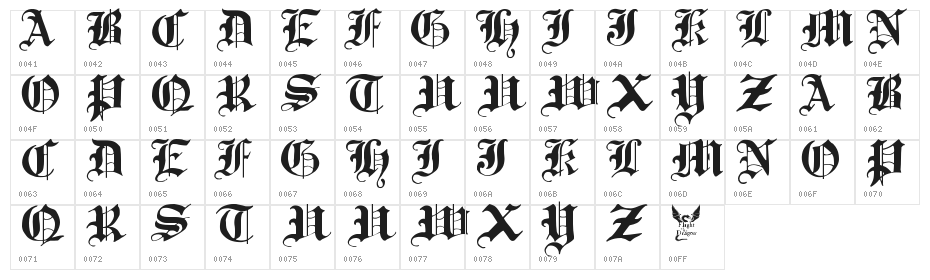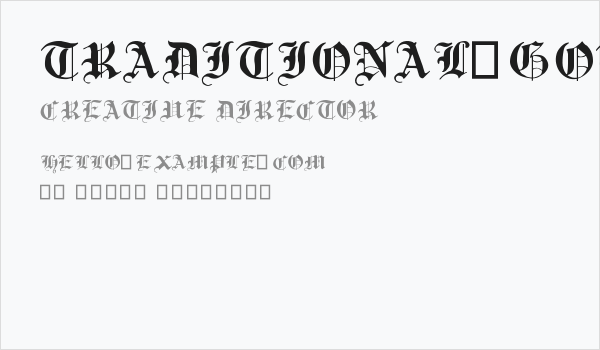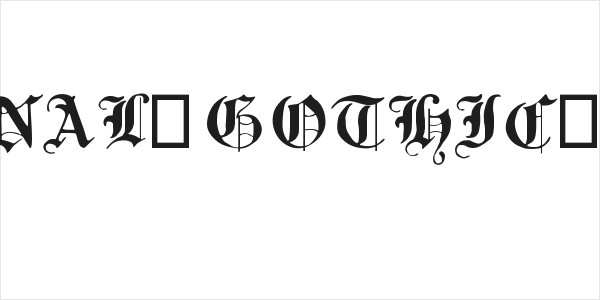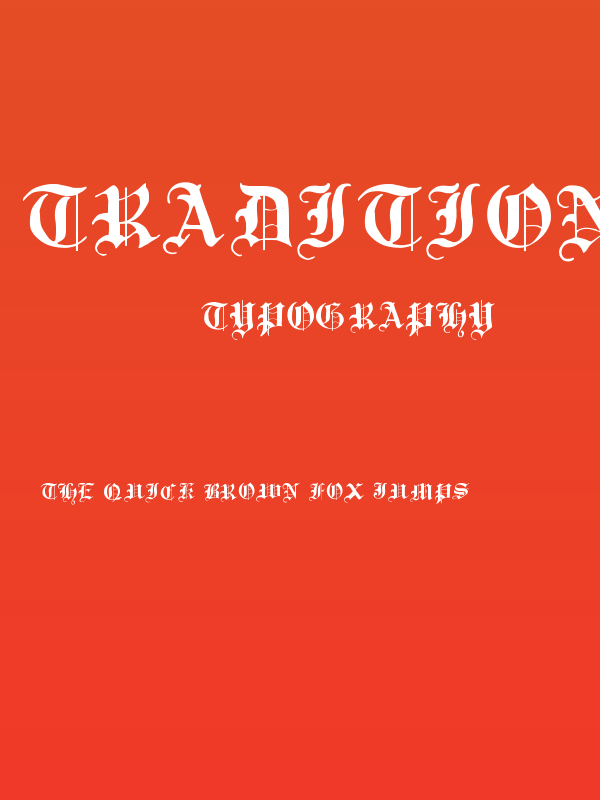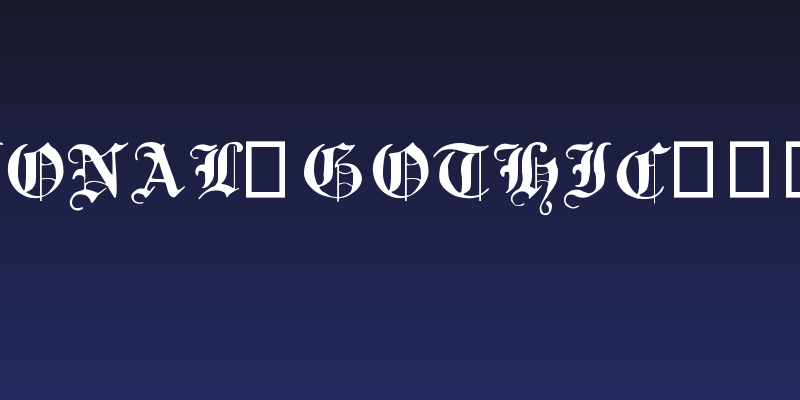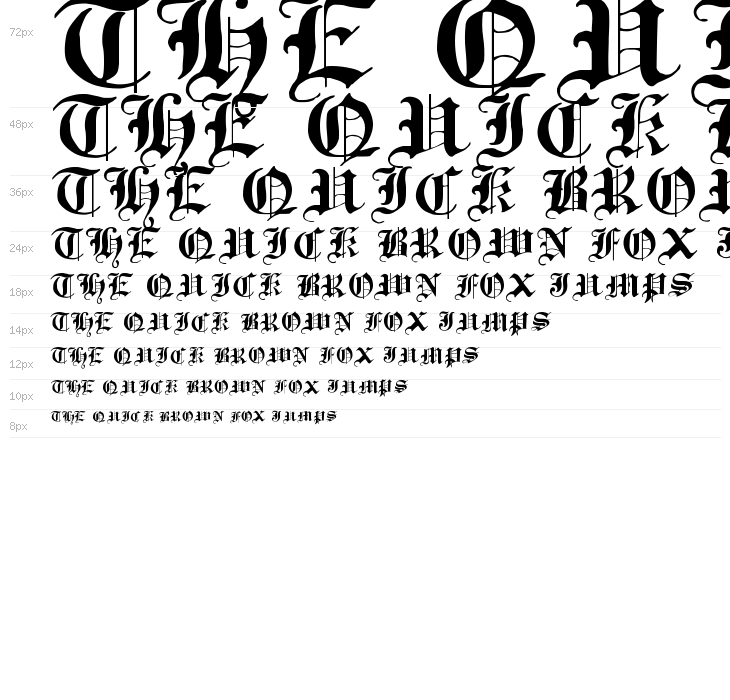
Traditional-Gothic--17th-c- Font
Traditional-Gothic--17th-c- Description
This font embodies a traditional Gothic style reminiscent of 17th-century calligraphy. It features ornate and intricate letterforms with elaborate serifs and decorative flourishes. The uppercase letters are particularly striking, with sharp angles and bold strokes that convey a sense of historical grandeur. The lowercase letters maintain the same level of detail, ensuring consistency across the typeface. The overall appearance is both dramatic and elegant, making it suitable for projects that require a touch of antiquity and sophistication. The font's unique character is further enhanced by its high contrast between thick and thin strokes, adding to its visual impact.
| Proposed Projects | Ideal for historical documents, certificates, invitations, or any project seeking a vintage or medieval aesthetic. |